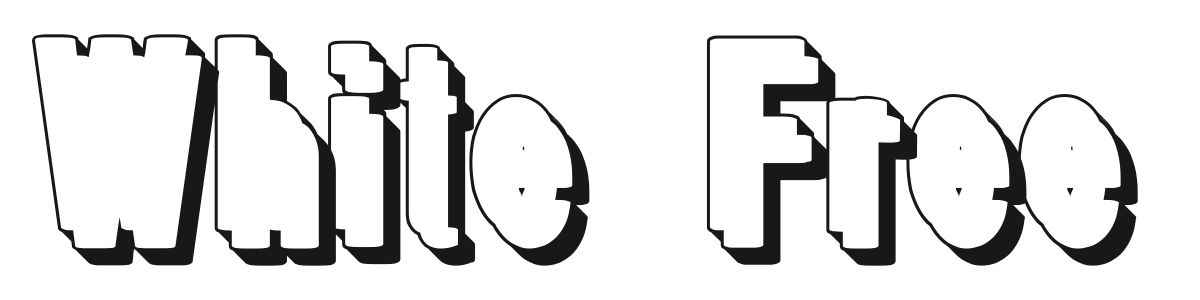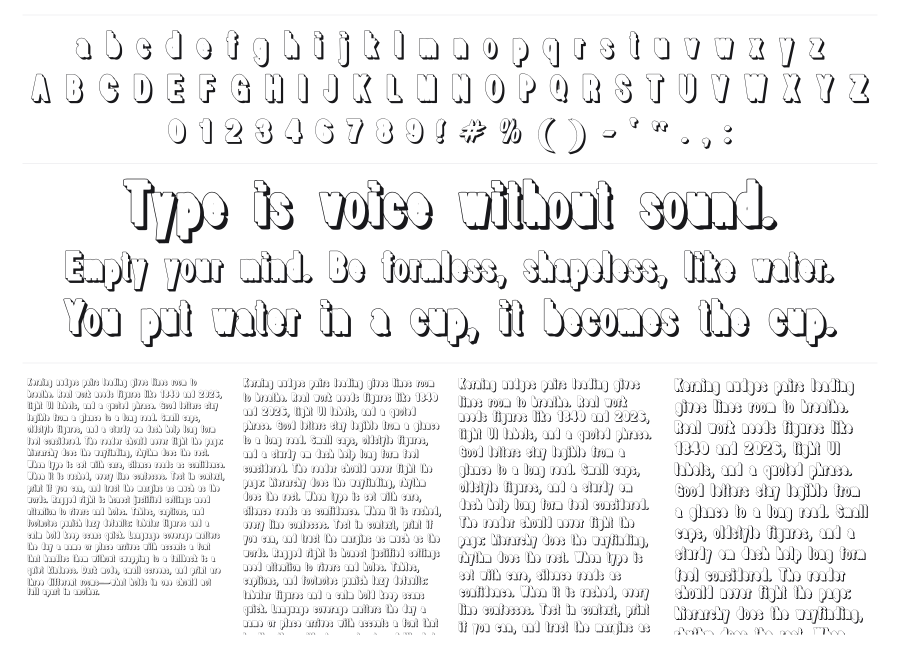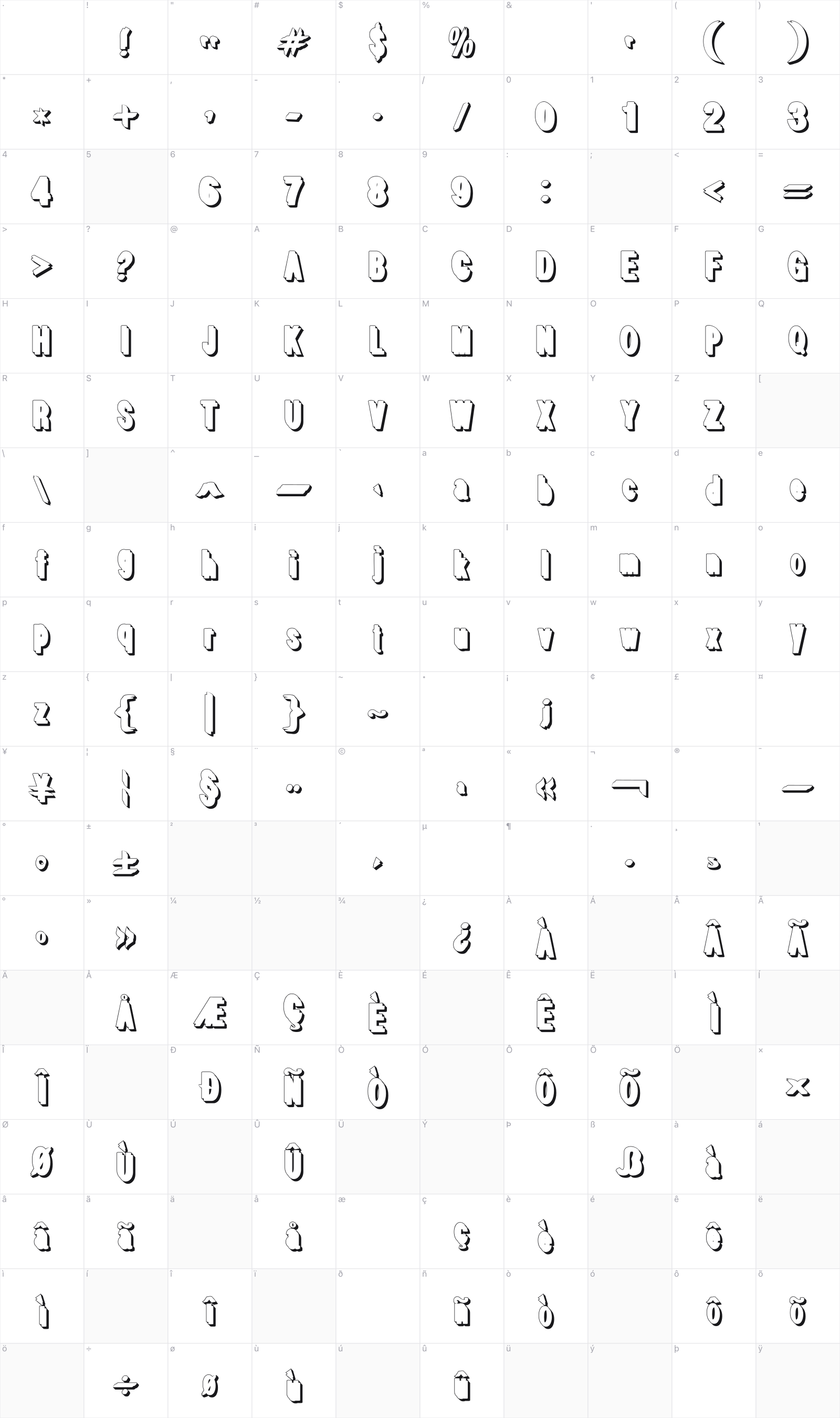
White Free
White FreeLicense is a heavy rounded sans with a built-in three-dimensional shadow treatment straight out of 1970s poster typography. The chunky, bubbly characters have near-monoweight strokes and tight rounded terminals that give the whole thing an unmistakable groovy warmth. It works best big, where the shadow effect reads clearly and the retro personality lands.